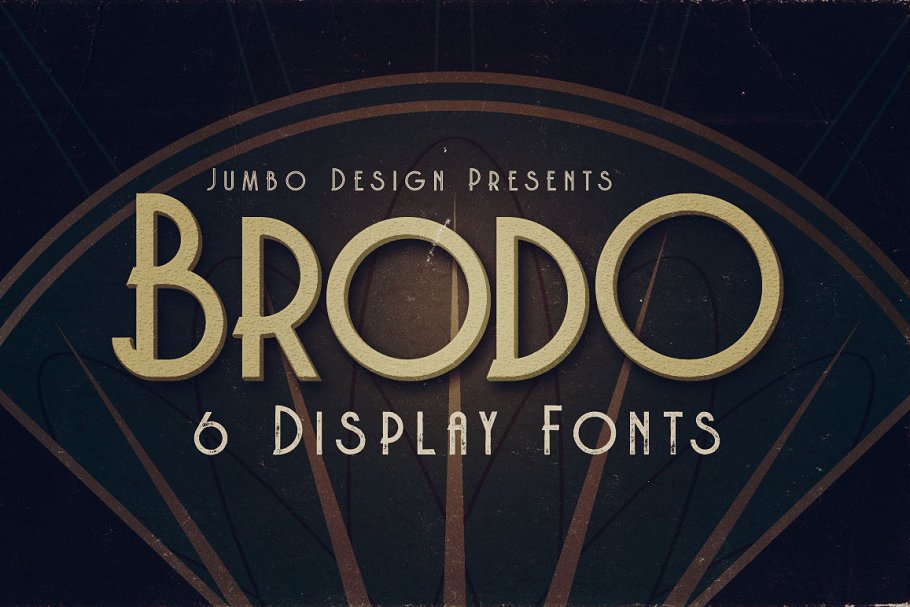
Looking to add a touch of vintage or art deco elegance to your design projects? Look no further than Brodo - Display Font! Created by JumboDesign, this unique font family is the perfect choice for those seeking the best font for display boards.
With its custom sans serif style, Brodo offers a charming blend of classic and contemporary design elements. The font family includes six stunning styles: regular, grunge, thin, thin grunge, inline, and inline grunge. Each style brings its own personality and versatility to the table, allowing you to experiment and create captivating visuals.
Whether you're working on a poster, logo, website, or any other design project, Brodo is sure to make a lasting impression. Its vintage-inspired aesthetic instantly transports viewers to a bygone era, evoking a sense of nostalgia and charm. The grunge variations add a touch of edginess, perfect for designs that require a raw and authentic feel.
Not only does Brodo offer aesthetic appeal, but it also boasts functionality. Its carefully crafted letterforms ensure readability, making it an excellent choice for display boards. Whether you're showcasing important information or simply want to make a bold statement, Brodo will captivate your audience and leave a lasting impression.